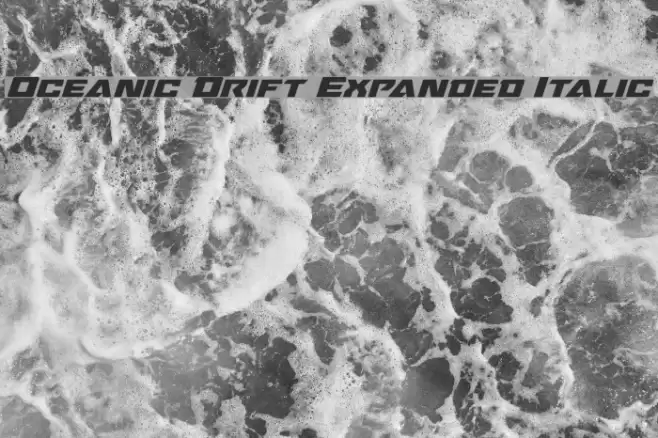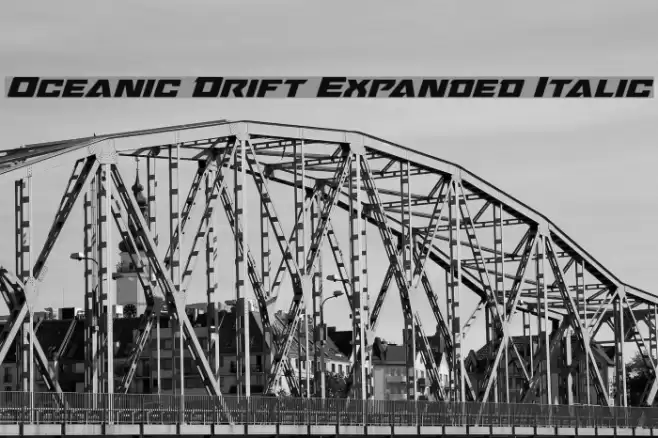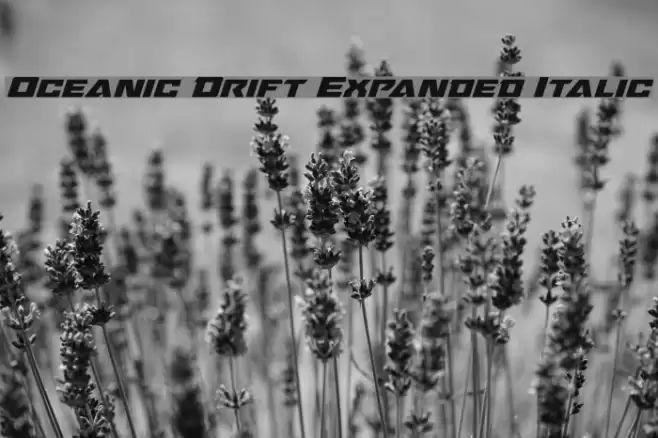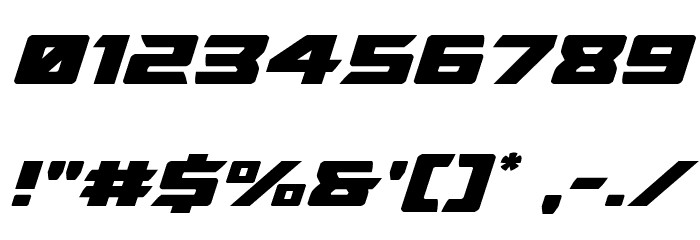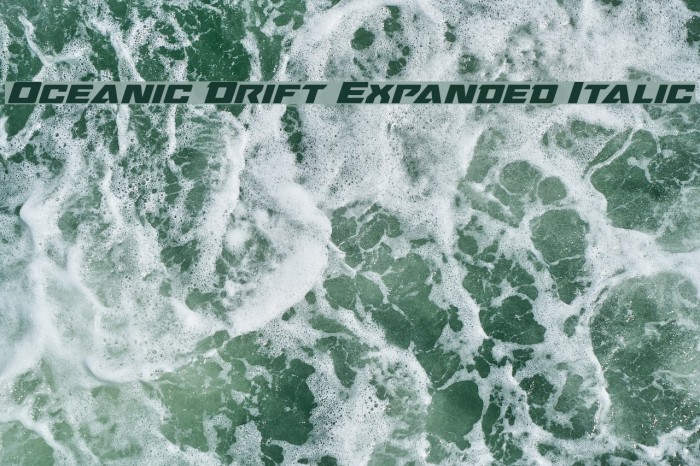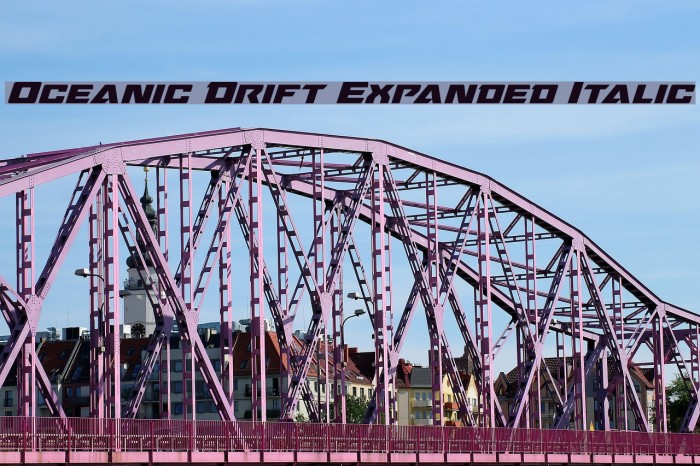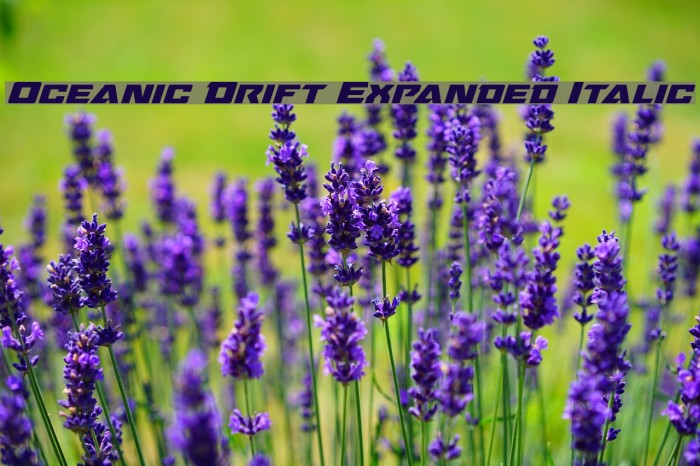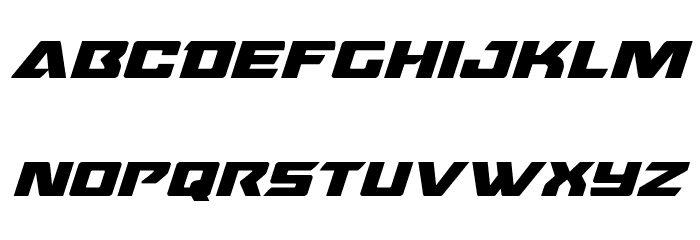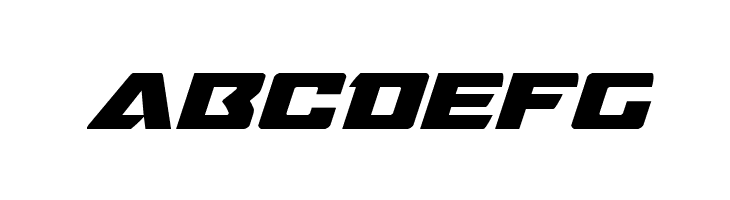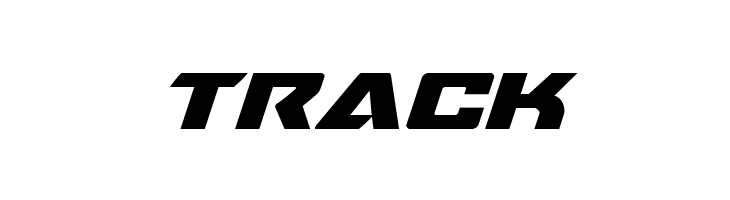
Oceanic Drift Expanded Italic Font
Oceanic Drift Expanded Italic Description
This font features a bold and dynamic style with an italic slant, giving it a sense of motion and energy. The characters are expanded, providing a wide and impactful appearance. The design incorporates sharp angles and clean lines, which contribute to its modern and futuristic aesthetic. The uppercase and lowercase letters maintain a consistent style, ensuring readability while adding a unique flair. The numerals and special characters are designed to match the boldness and angularity of the alphabet, making it suitable for attention-grabbing headlines and designs.
A bold, expanded italic font with a modern and dynamic style from Uncategorized fonts.
- Proposed Projects: Ideal for sports branding, futuristic designs, automotive advertisements, and dynamic posters.